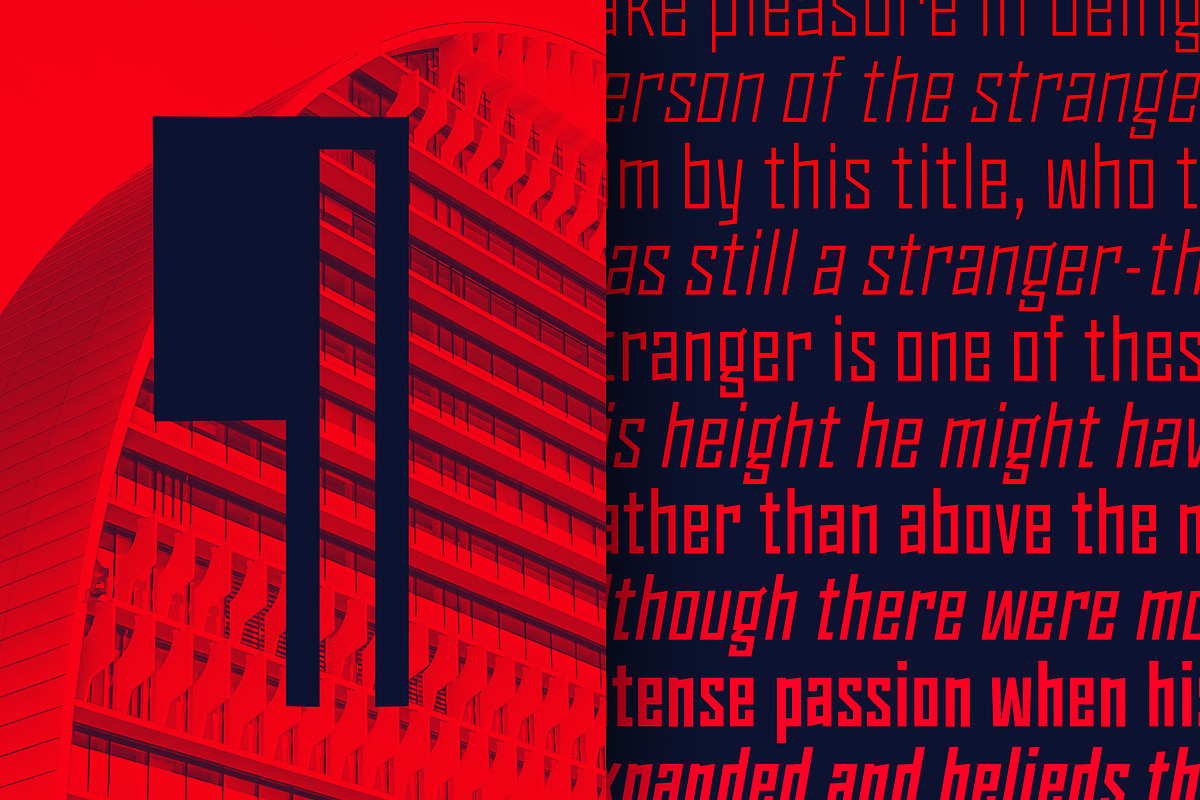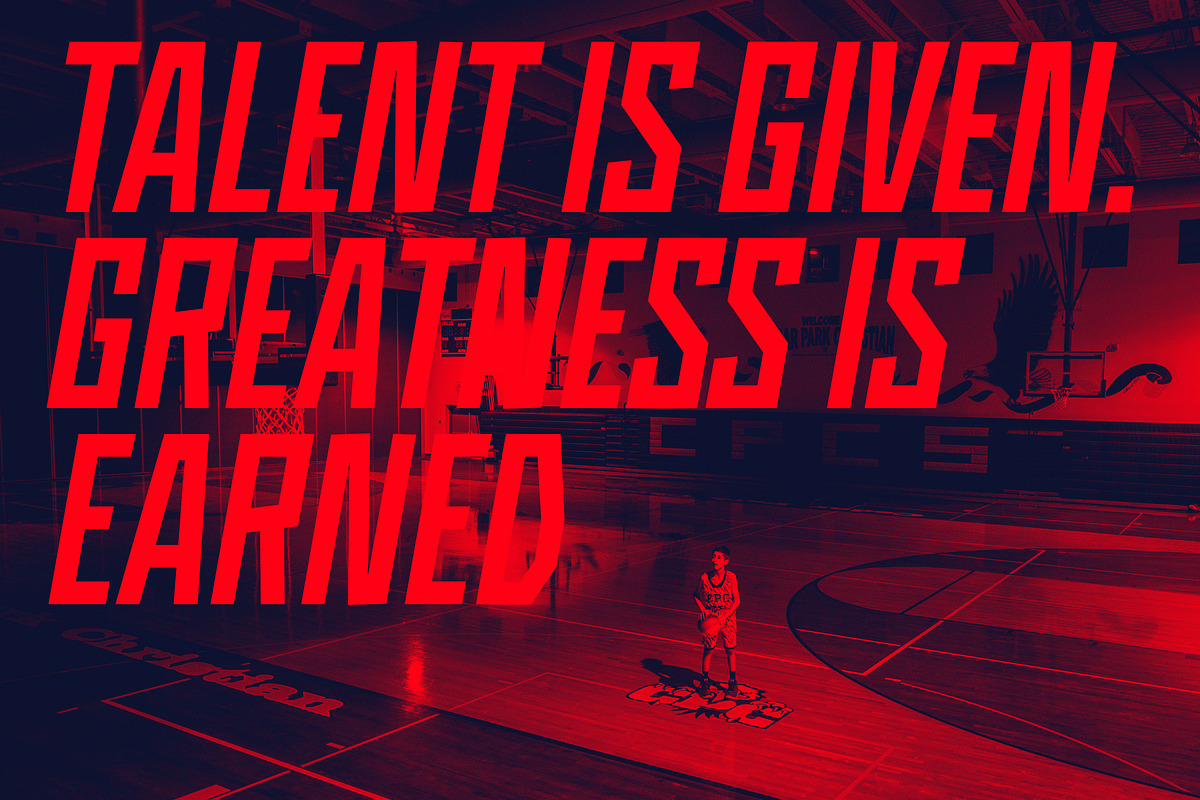
Monolisk
Monolisk is a rigid, gothic typeface that draws on inspiration from Eastmodern and Brutalist architecture. The letterforms are modelled on post-Soviet buildings – known for their visual rigidity and solid construction.
Monolisk has been described as resolute and unapologetic. Personally, I choose to take that as a compliment. The design manages to deliver a dominant sense of uniformity, to the point of obstinance, while small unruly facets help to create an undertone of rebellion and dissent, providing an element of quirk and personality. A small poke at the old Soviet socialist paradox of (lack of) freedom through uniformity.
- 5 weights, 10 styles
- Light, Regular, SemiBold, Bold, and Black – with corresponding italics
- Latin & Cyrillic
Open type Features
- Custom and Arbitrary Fractions
- Lining Figures
- Tabular Figures
- Slashed Zero
- Ordinals
- Small Caps
- Capitals to Small Caps
- Contextual Alternates
- Discretionary Ligatures
- Case Sensitive Forms